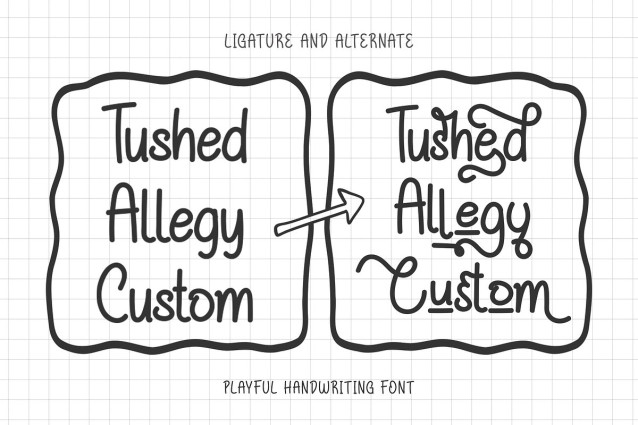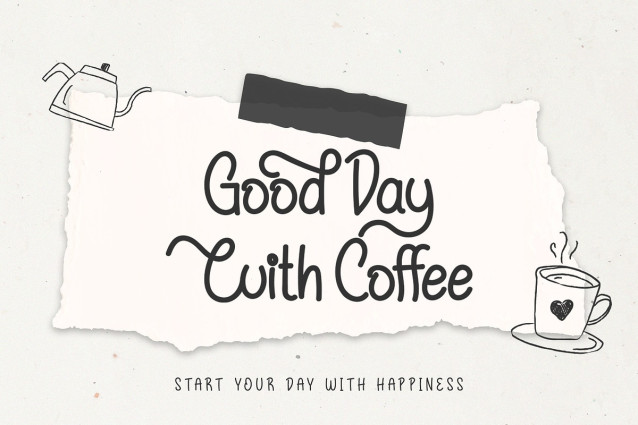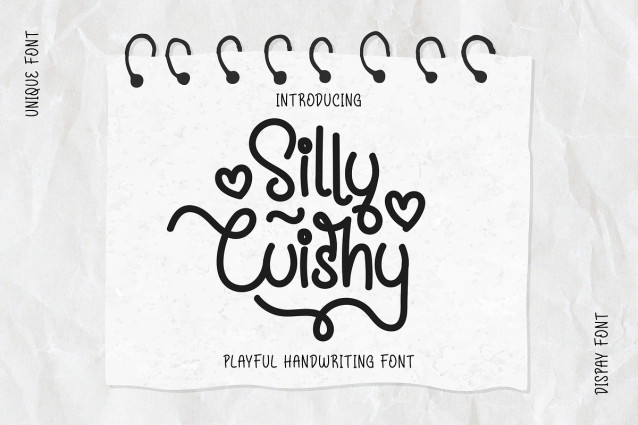
Silly Cuishy Font
Silly Cuishy Font – Playful handwriting fonts showcase charming, unique letterforms that add character to designs. Perfect for invitations, branding, and social media, they create a friendly, personalized touch in creative projects.
Uppercase & Lowercase Characters: Fully designed for a complete typographic experience
Numerals & Punctuation: All the numbers and punctuation marks you need for any design task
Multilingual Support: Includes characters for multiple languages, ensuring global usability
High-Quality Design: Each font is crafted with attention to detail, ensuring a polished and professional look
Editable and Scalable: Vector-based fonts that can be resized without losing quality